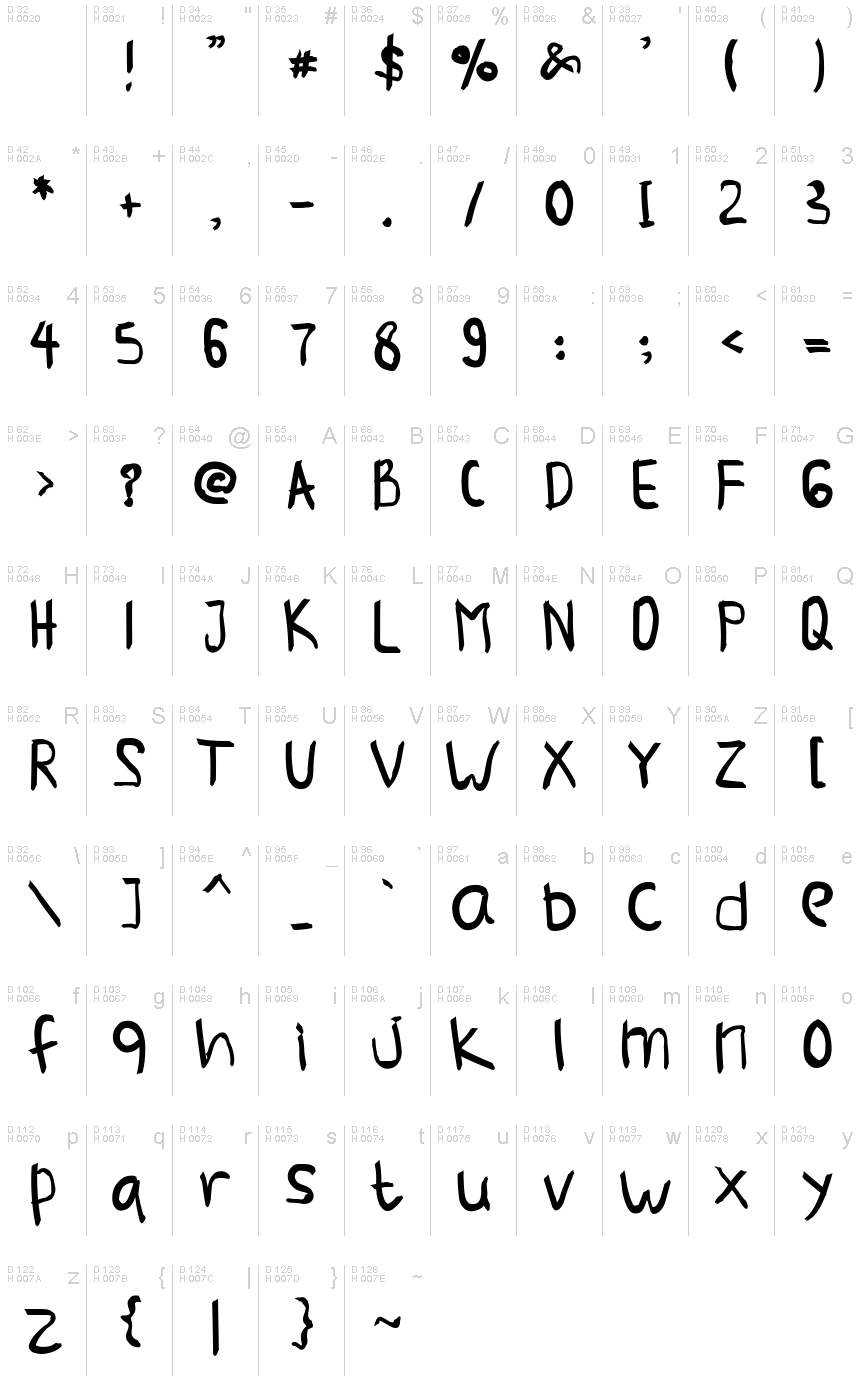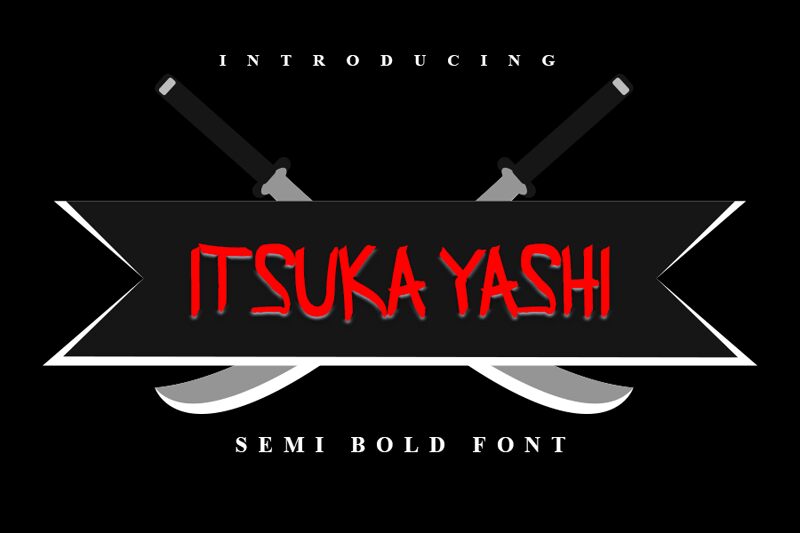
ITSUKA YASHI
Itsuka Yashi by Inermedia Studio is a captivating script font that exudes a unique Japanese aesthetic. With its bold, dynamic strokes and seamless flow, this typeface evokes a sense of elegance and artistry. The sharp, angular edges juxtaposed with the fluid, calligraphic lines create a visually striking balance, inviting the viewer to explore its captivating character.
This versatile font lends itself well to a variety of design applications, from logotypes and branding to editorial layouts and packaging. Its strong personality makes it an excellent choice for projects that require a touch of cultural authenticity, whether in the realm of Japanese-inspired design, or for evoking a sense of tradition and refinement. Itsuka Yashi by Inermedia Studio is a captivating addition to any designer's toolkit, offering a distinct typographic voice that can elevate the visual impact of any project.